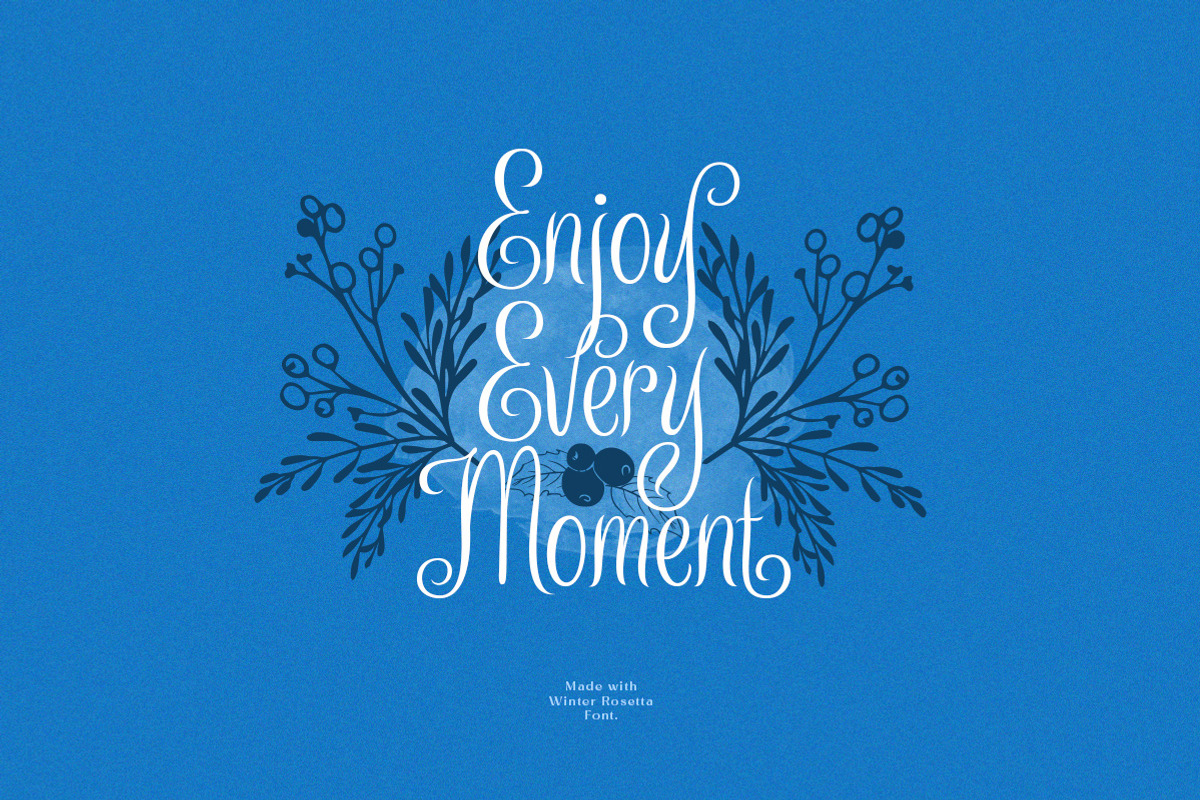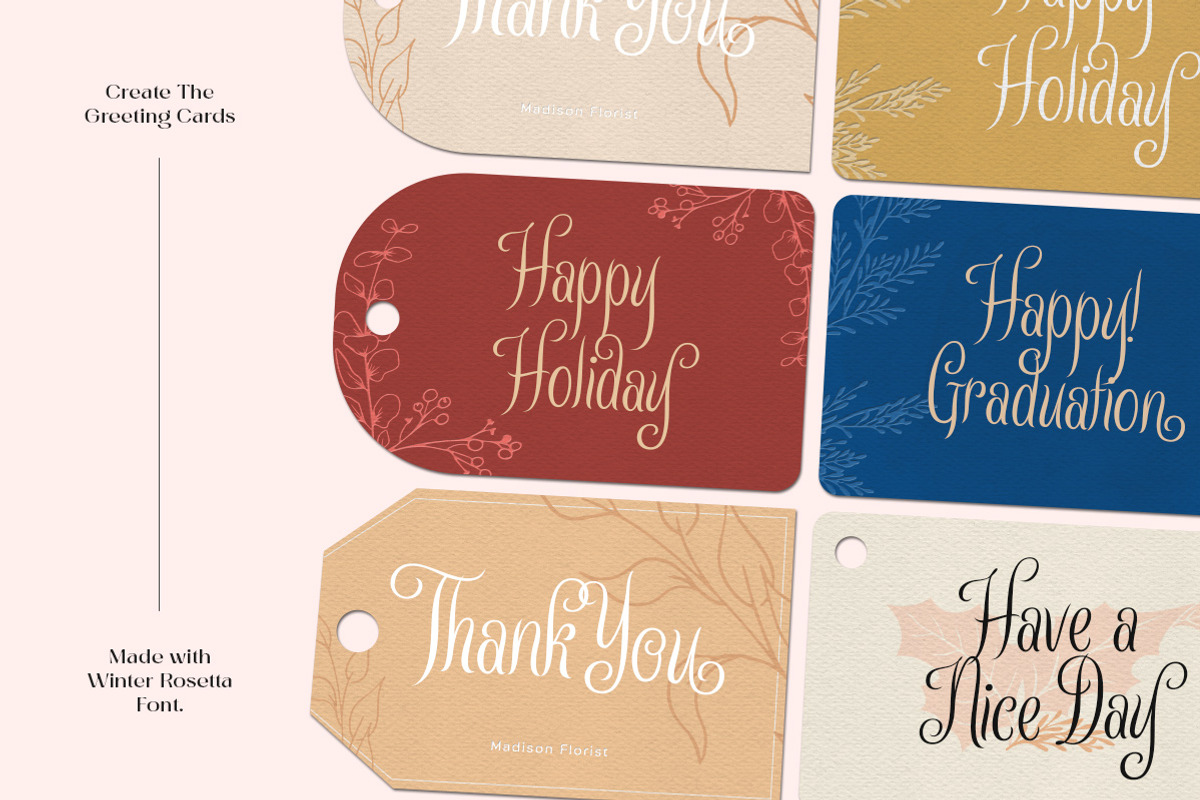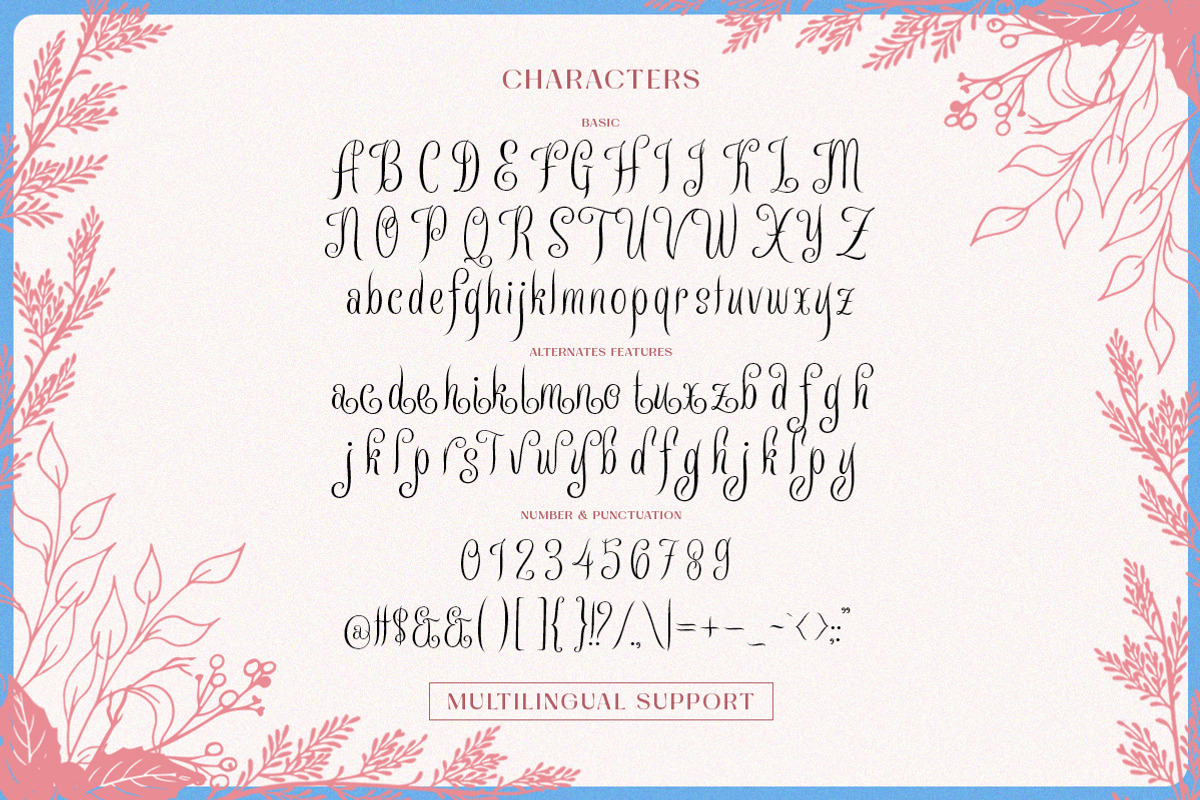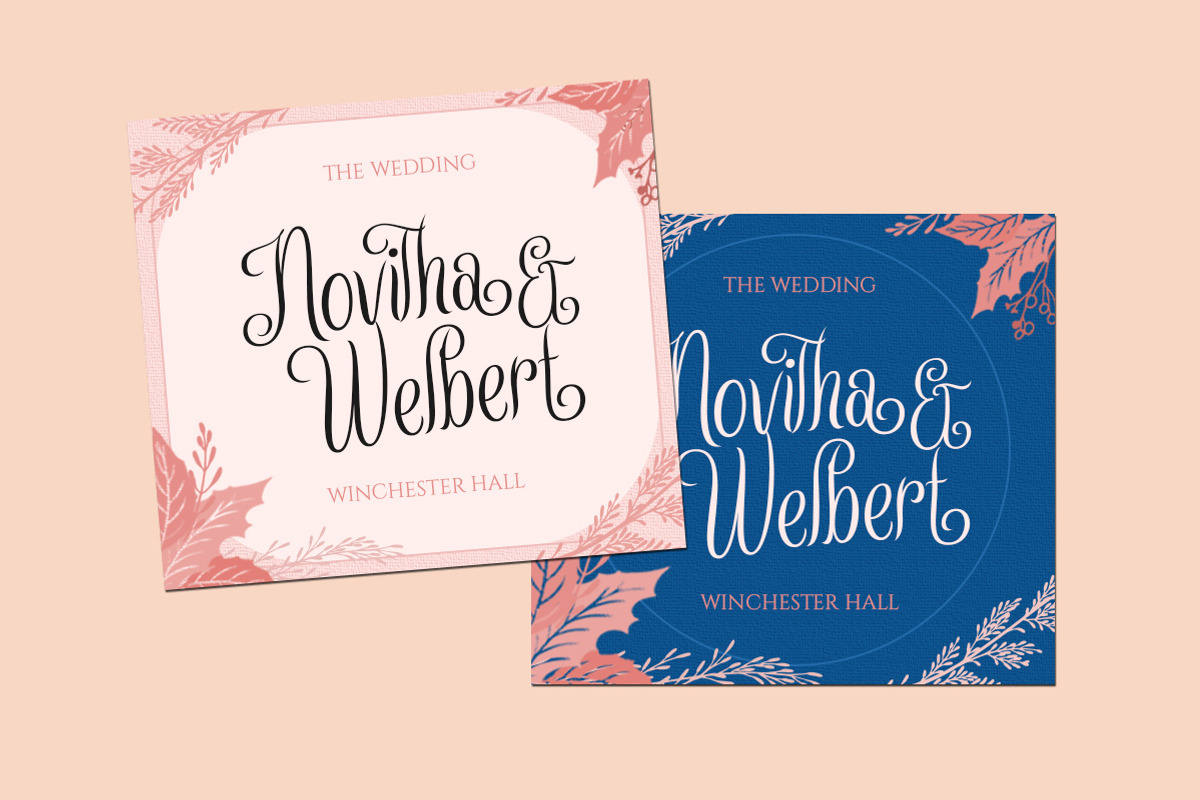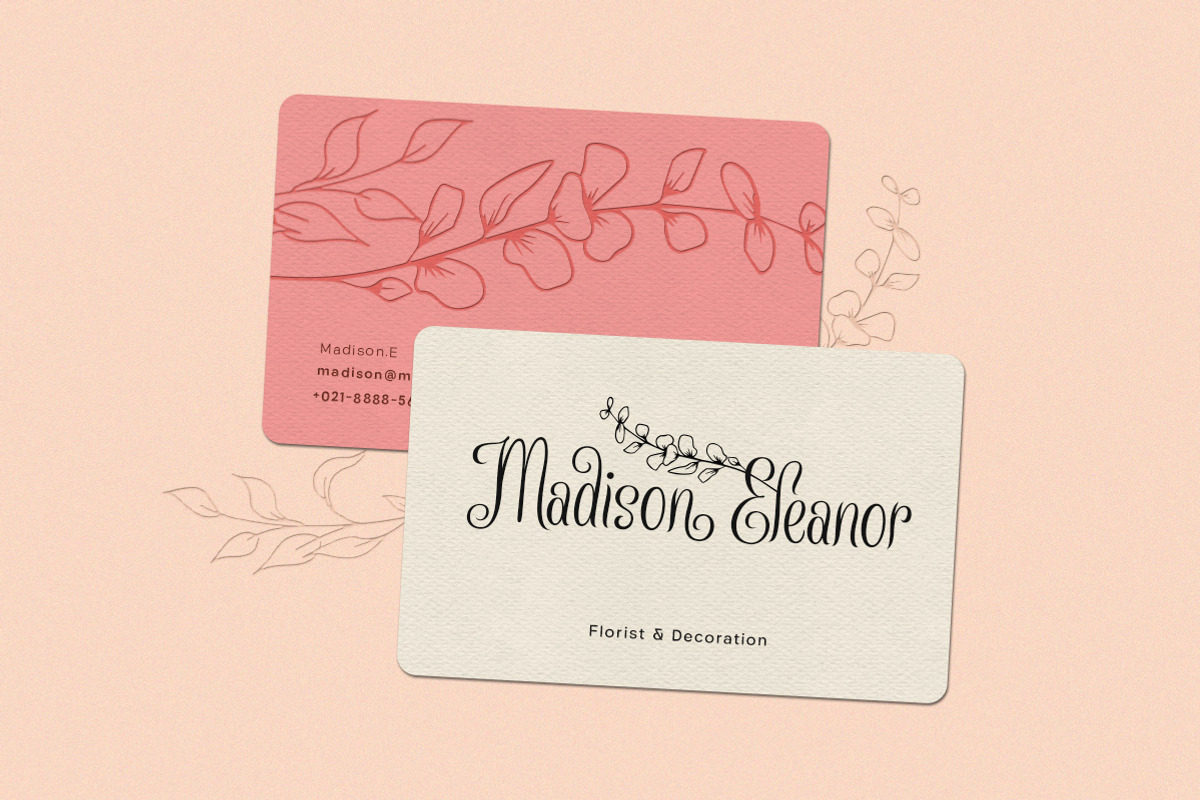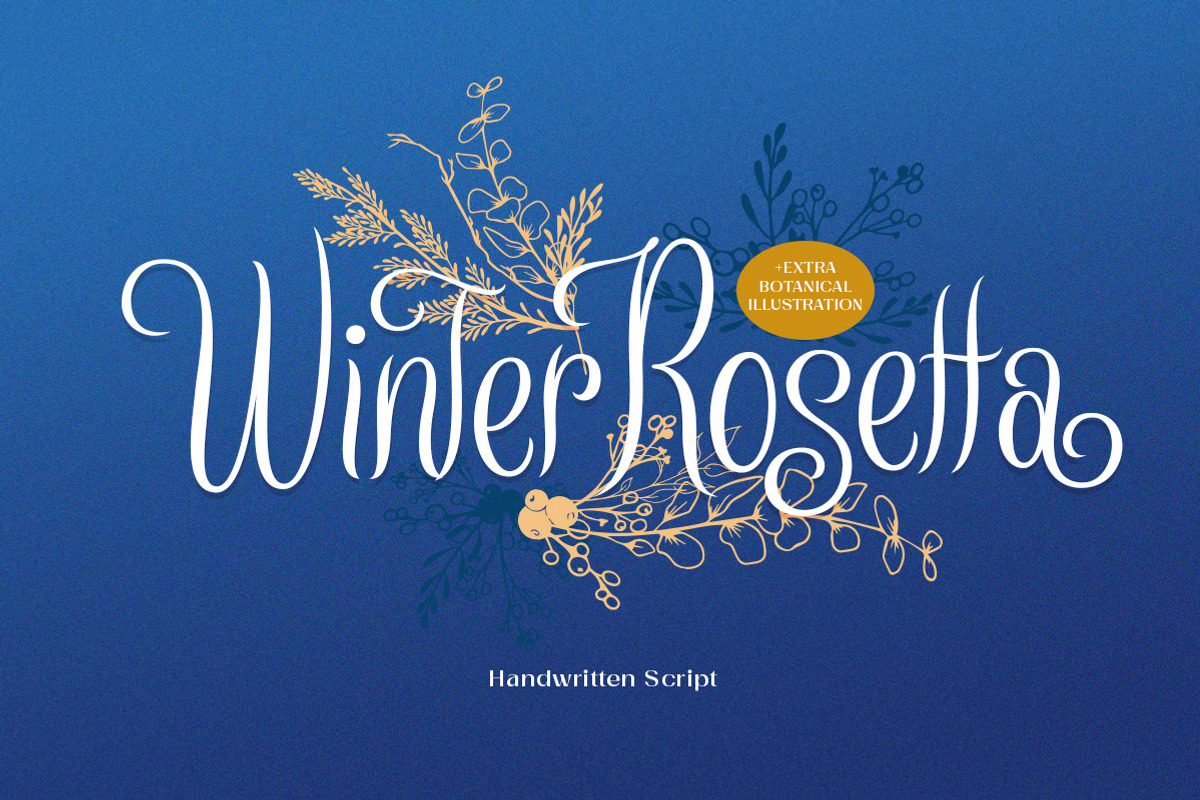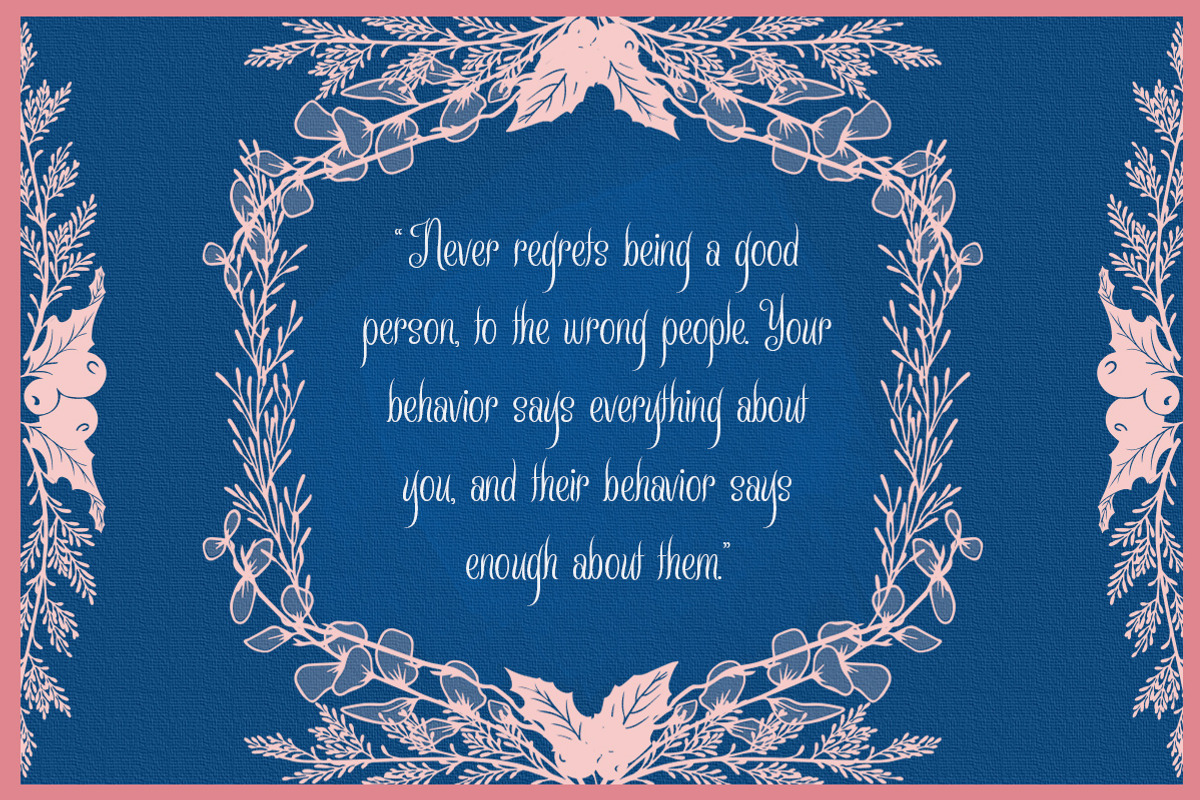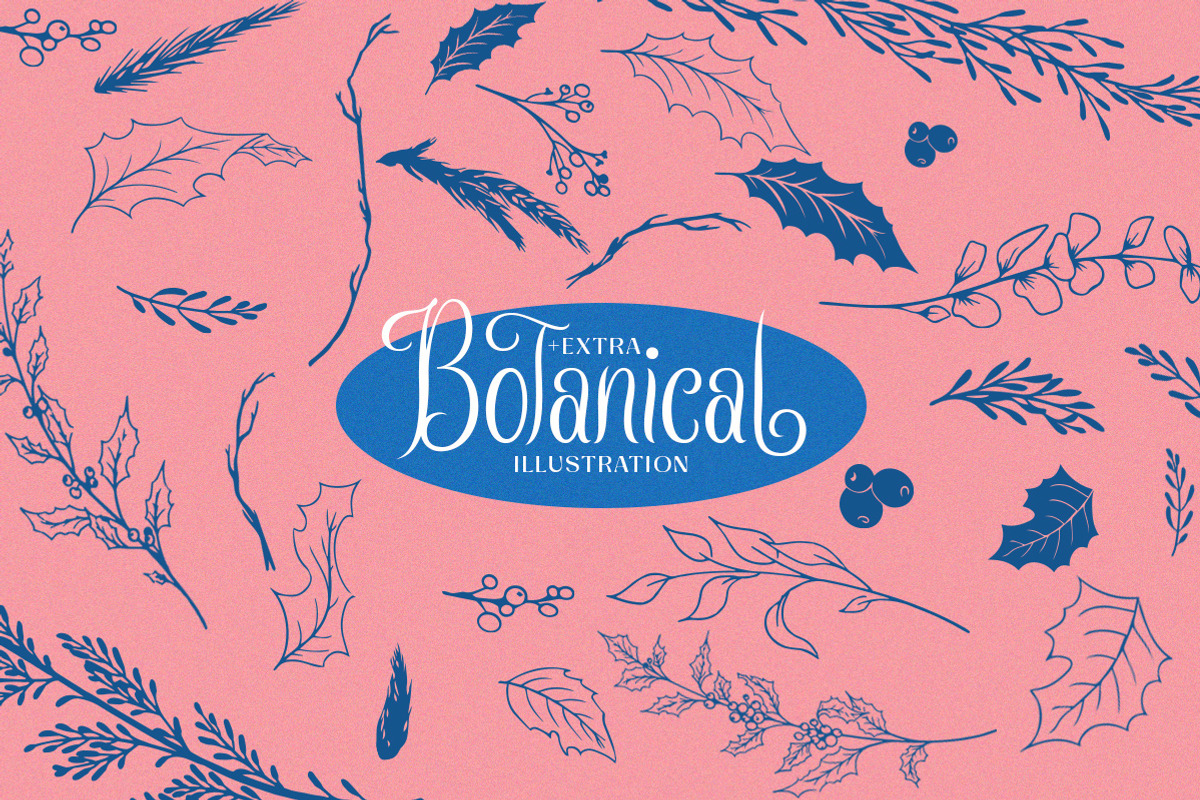
Winter Rosetta - Handwritten Script
Winter Rosetta is a pretty script font based on authentic hand writing with natural signature style with winter theme. It comes with floral / botanical hand drawn illustration object in vector. This type of font perfectly made to be applied especially in logo, and the other various formal forms such as invitations, labels, logos, magazines, books, greeting / wedding cards, packaging, fashion, make up, stationery, novels, labels or any type of advertising purpose.
- alternates and ligatures
- swashes
- free ornament vector